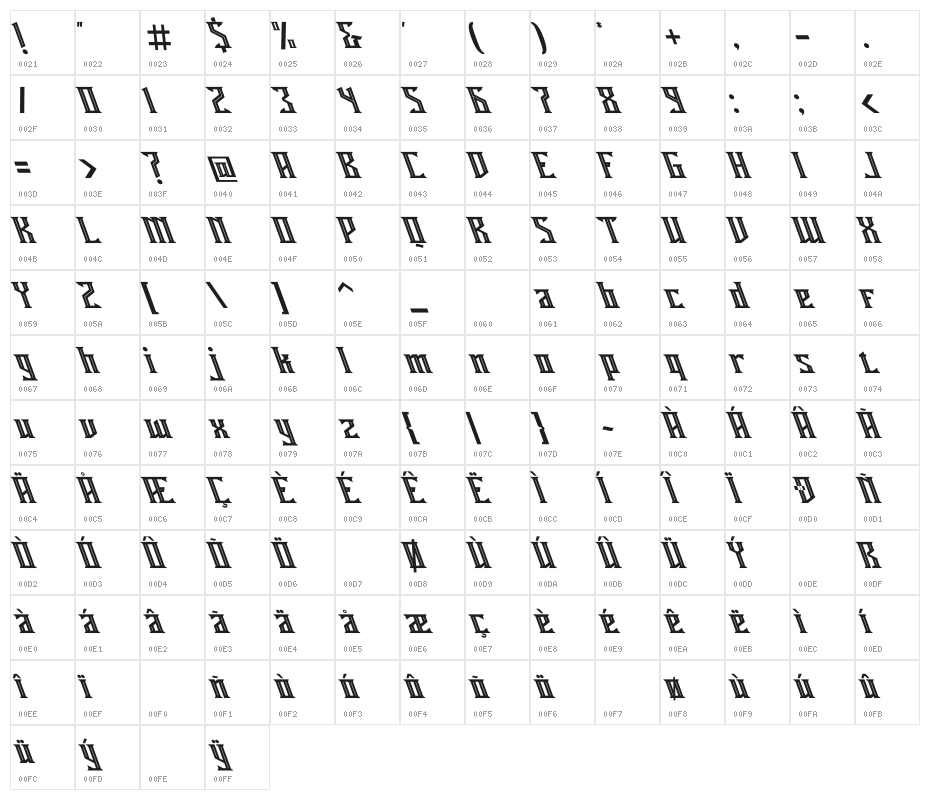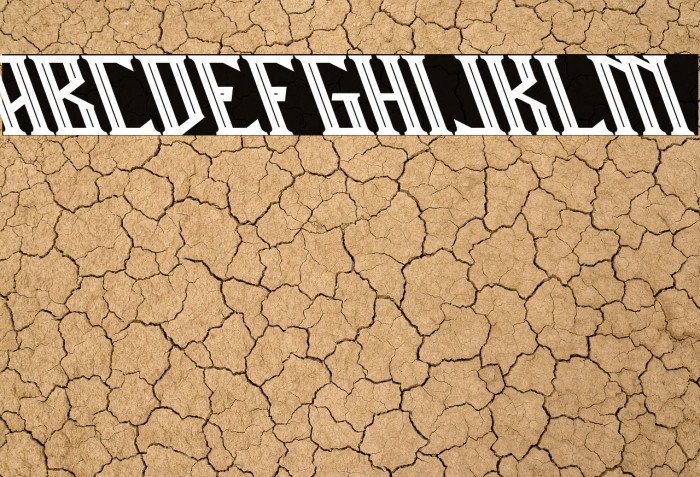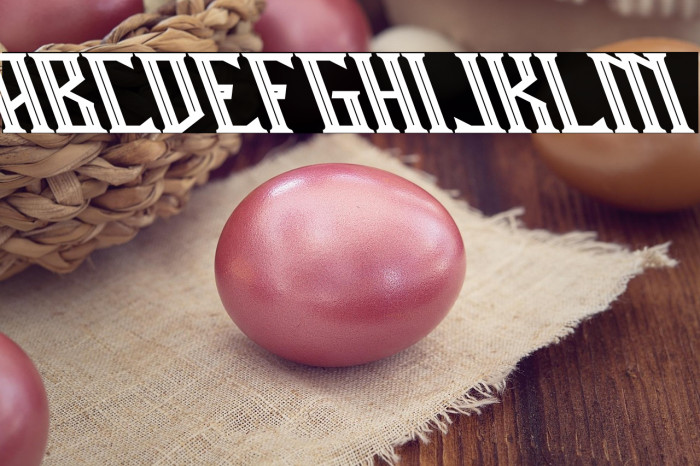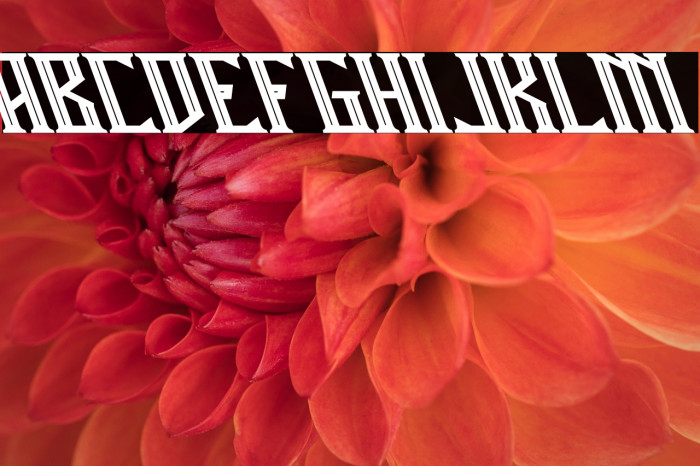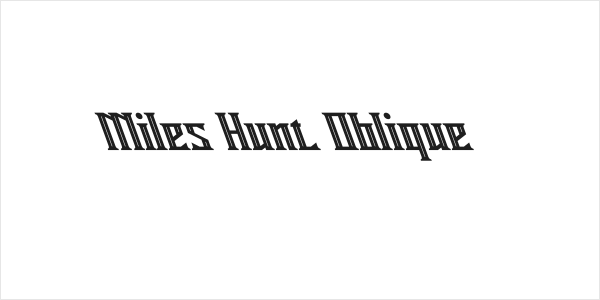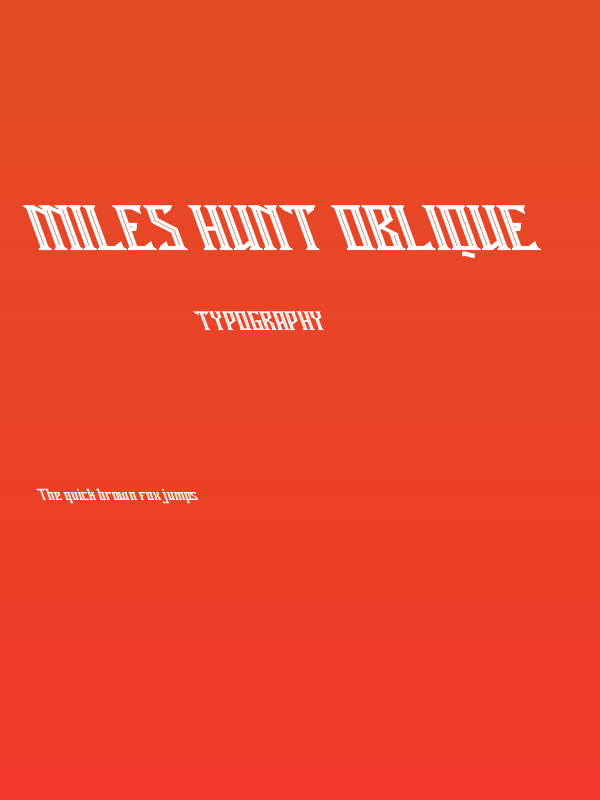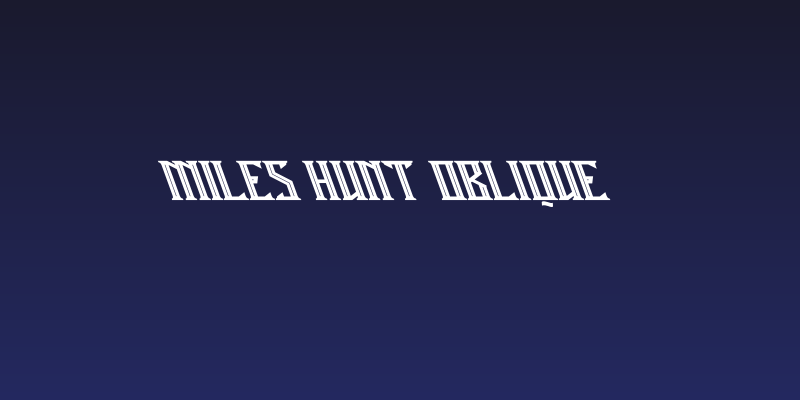
Miles Hunt Oblique Font
Miles Hunt Oblique Description
This font features a bold and angular design with a distinct oblique slant, giving it a dynamic and edgy appearance. The characters are constructed with sharp, geometric lines and a strong presence, making it highly suitable for attention-grabbing headlines or titles. The uppercase and lowercase letters maintain a consistent style, with the uppercase being more pronounced. Numbers and special characters follow the same angular and bold aesthetic, ensuring uniformity across all glyphs. The font's unique style is reminiscent of modern graffiti or urban art, making it ideal for projects that require a contemporary and rebellious look.
| Proposed Projects | Ideal for urban-themed designs, music album covers, streetwear branding, and modern art posters. |